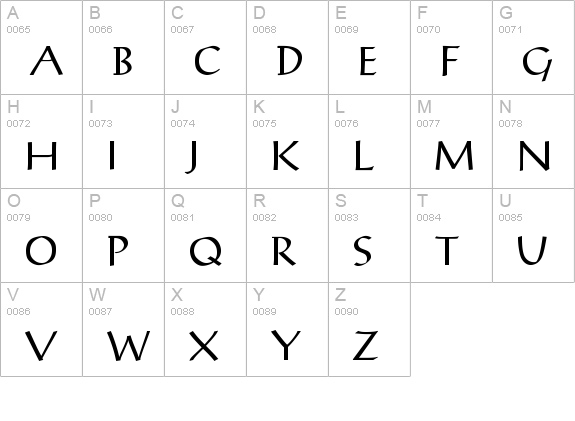
Post-Antiqua BQ Regular Font Details
Post-Antiqua BQ Regular is the standard, neutral variant in the Post typeface family \xE2\x80\x94 well suited to general body text, paragraphs, and standard typographic work.
Post-Antiqua BQ Regular is a timeless and versatile serif font that exudes sophistication and elegance. With its classic yet modern design, this font is perfect for a wide range of design projects, from elegant invitations to professional branding. The well-balanced letterforms and clean lines of Post-Antiqua BQ Regular make it easy to read and pleasant to the eye. What sets Post-Antiqua BQ Regular apart is that it is not only a high-quality font but also free for anyone to download. Yes, you read that right – this stunning font is freely available to download at FontsMarket.com. Whether you are a designer looking to add a touch of class to your projects or a business owner in need of a sophisticated font for your branding, Post-Antiqua BQ Regular is the perfect choice. Download it today and elevate your designs to the next level.